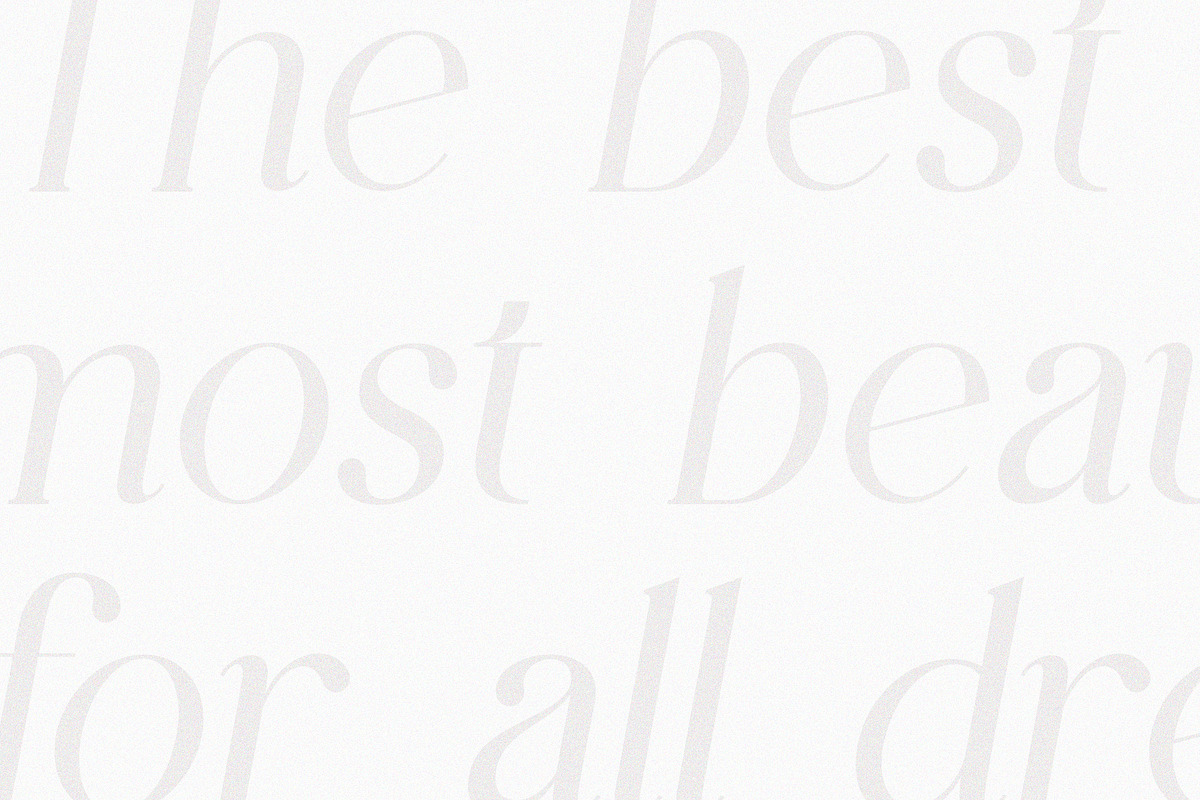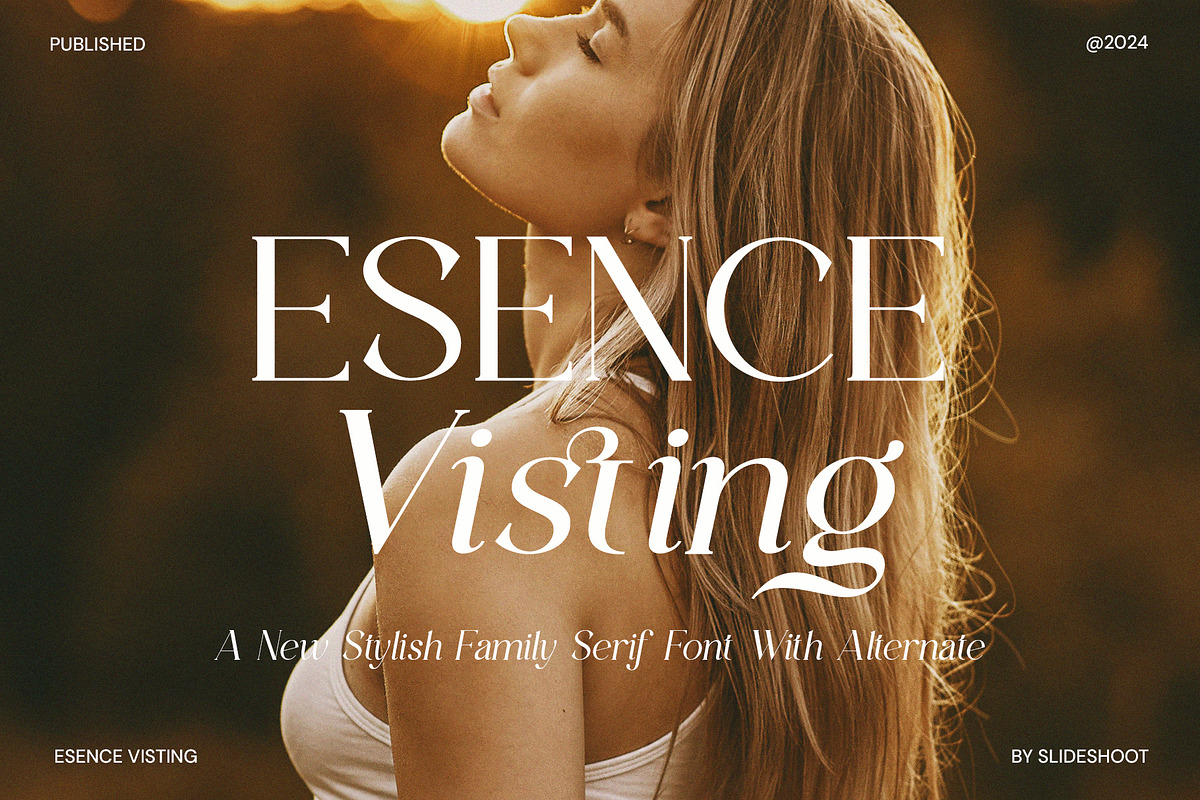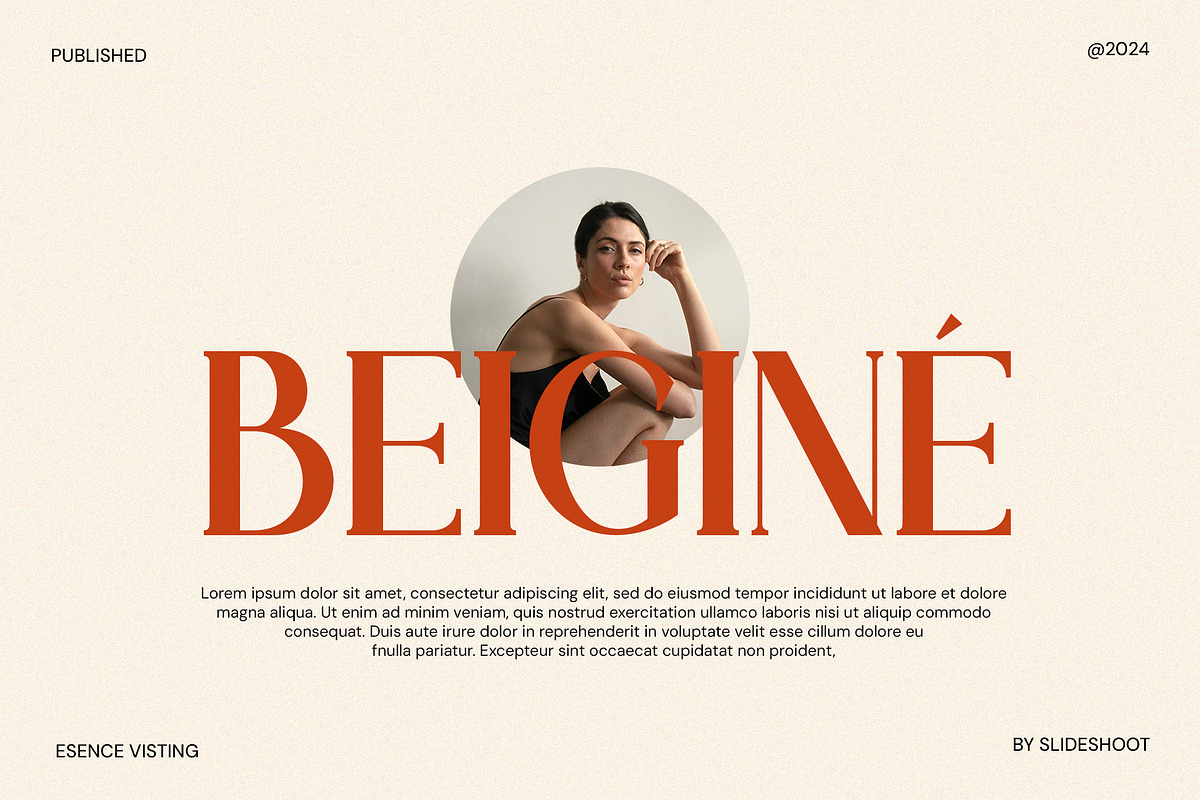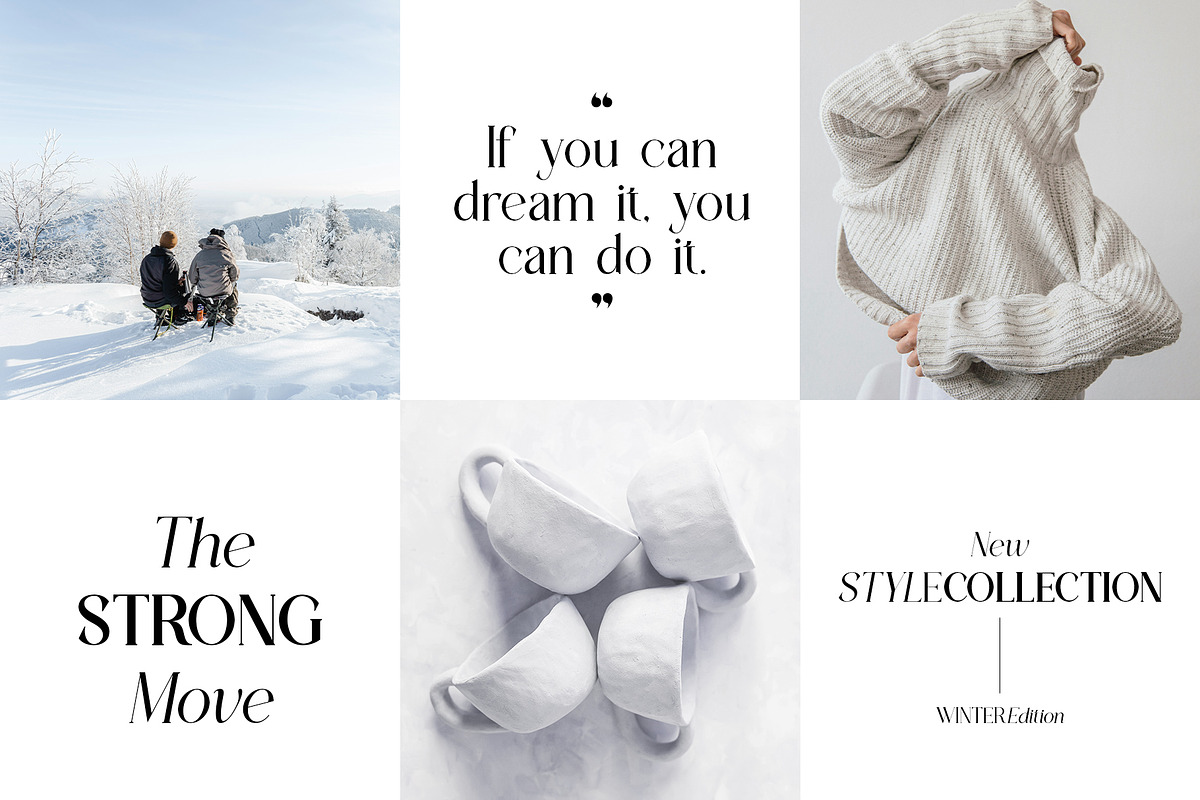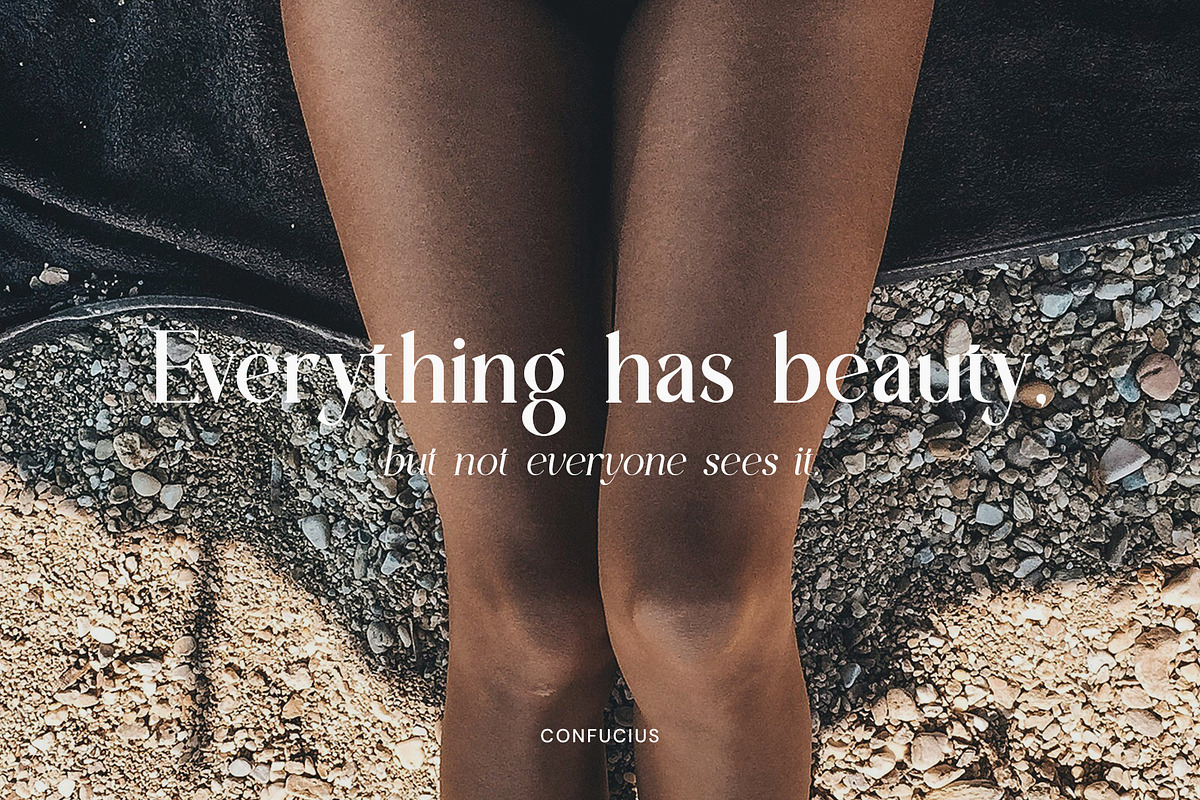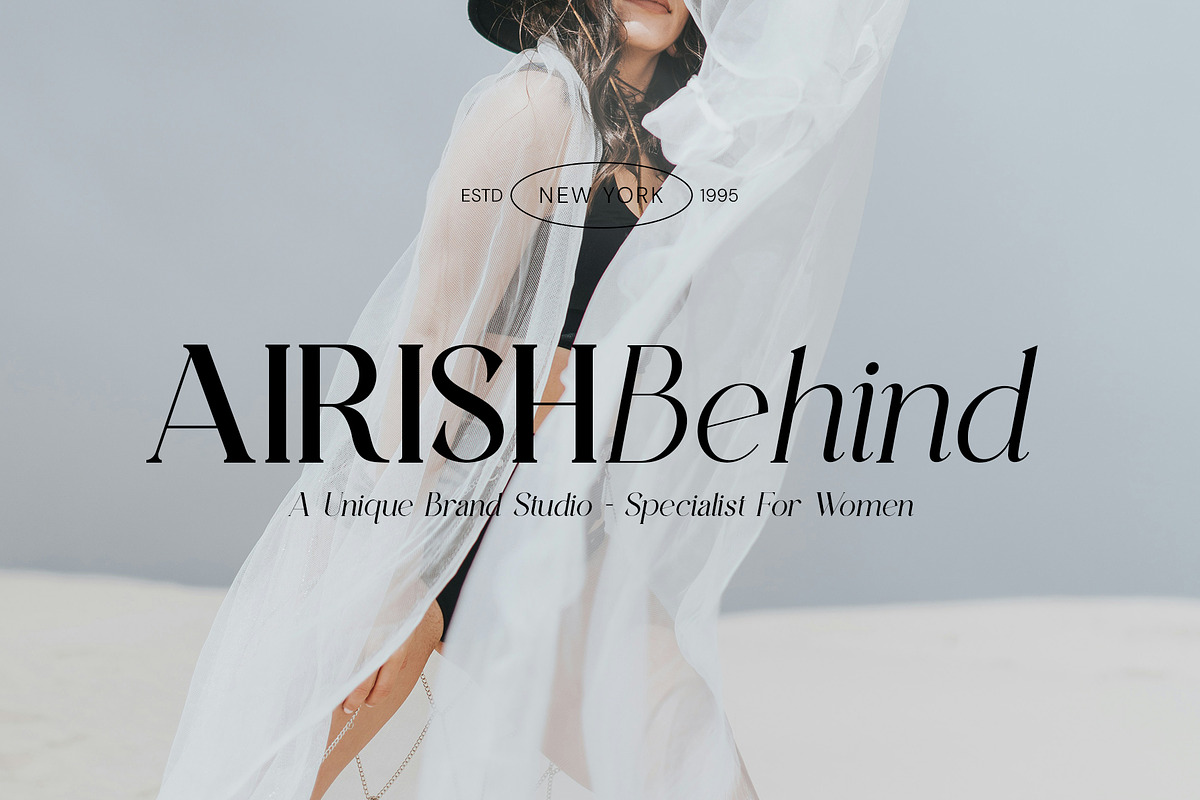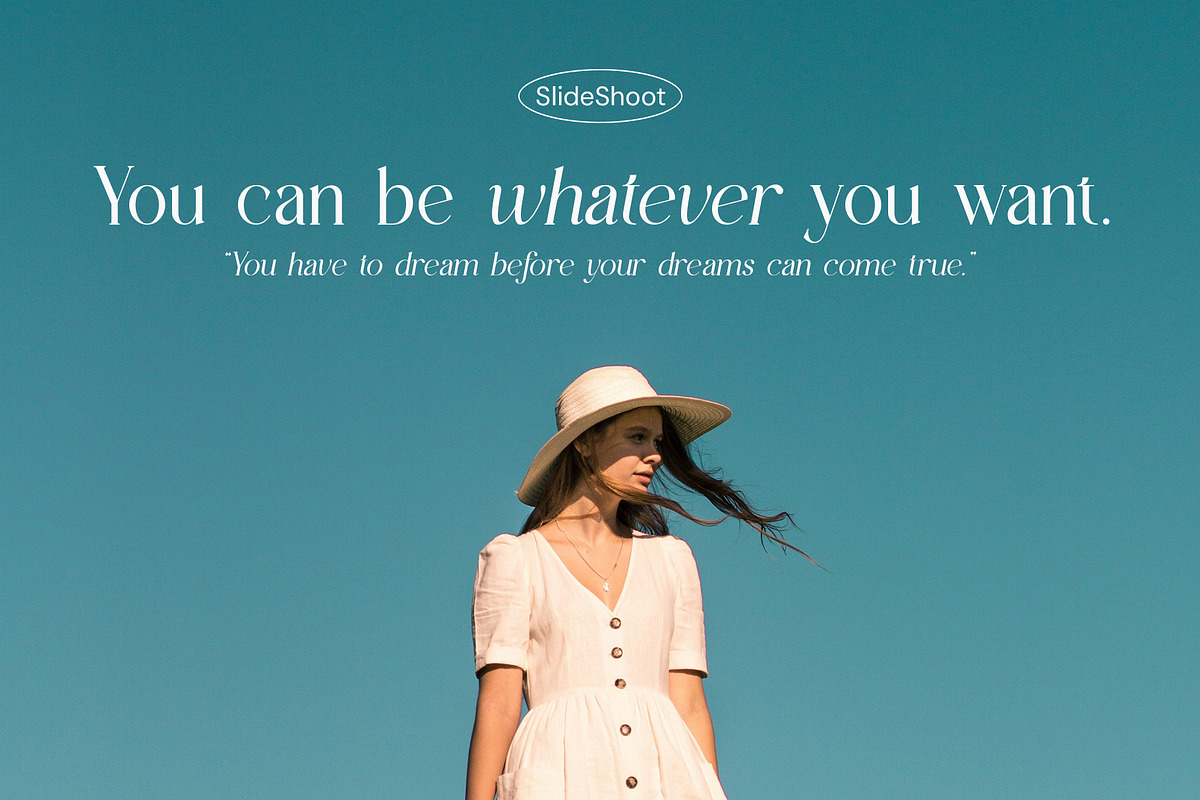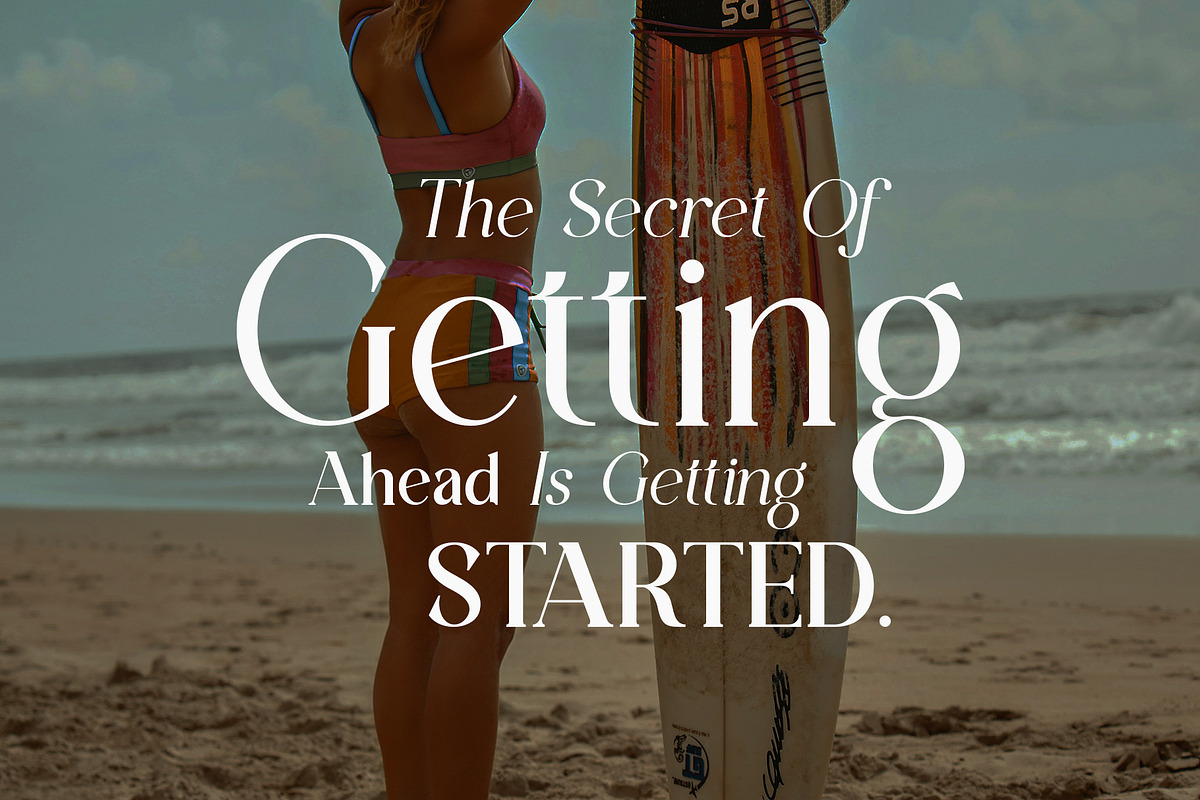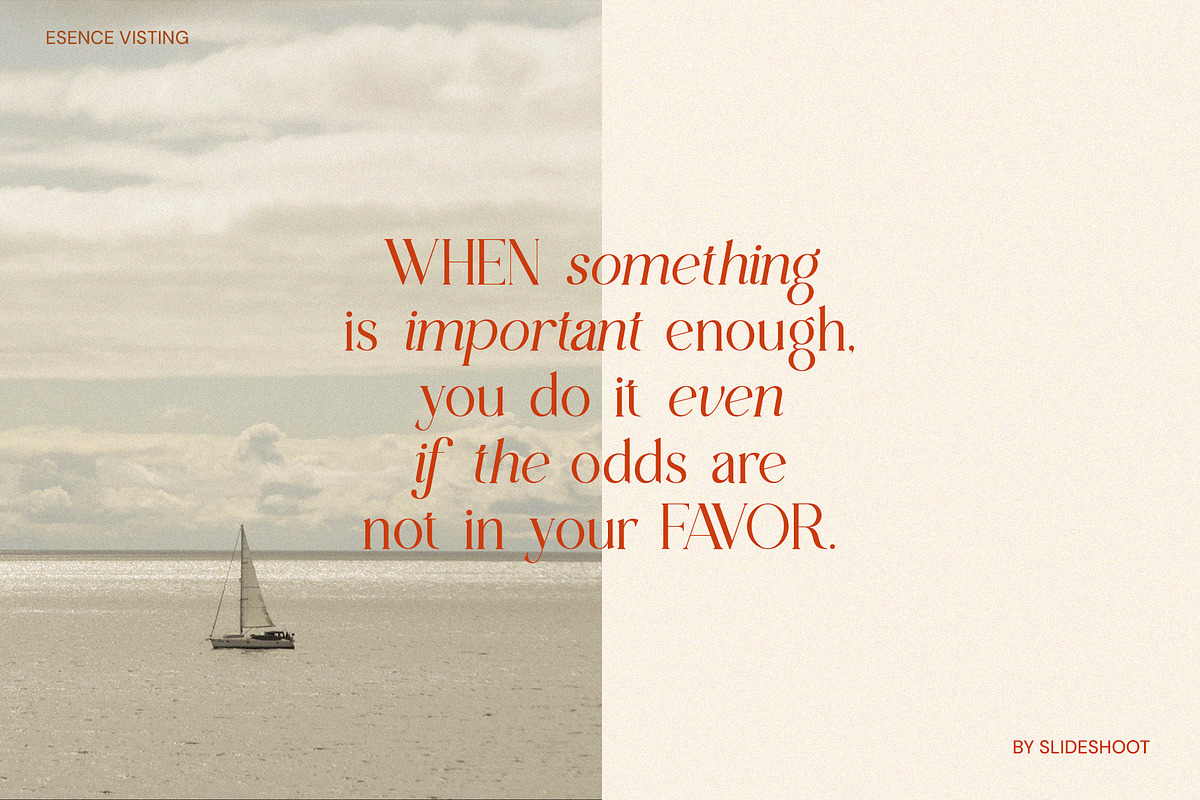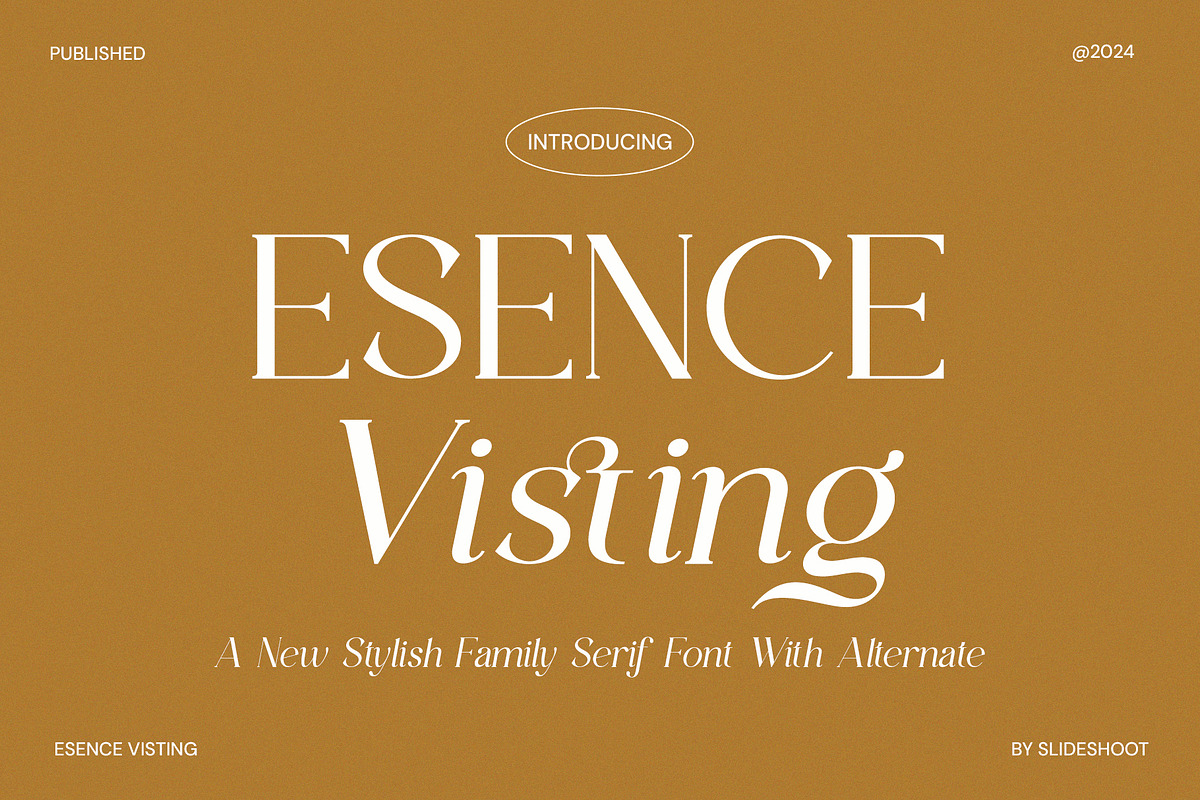
Esence Visting - New Stylish Serif
Esence Visting is a stylish, elegant and modern serif family, which includes 7 regular fonts and 7 italic fonts, from thin to bold, best used for titles, descriptions, logos, branding, magazines, product packaging and invitations. Its stylish turns and binding with clean lines and smooth curves add an extra touch of class to any project. make this font the perfect partner for any project.